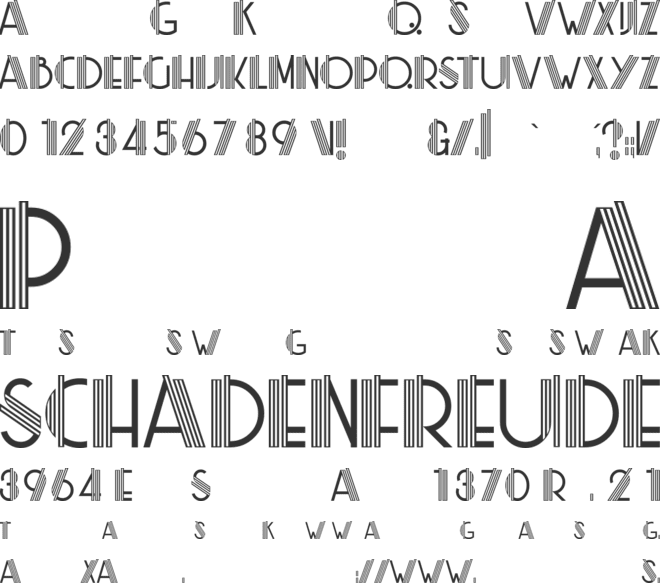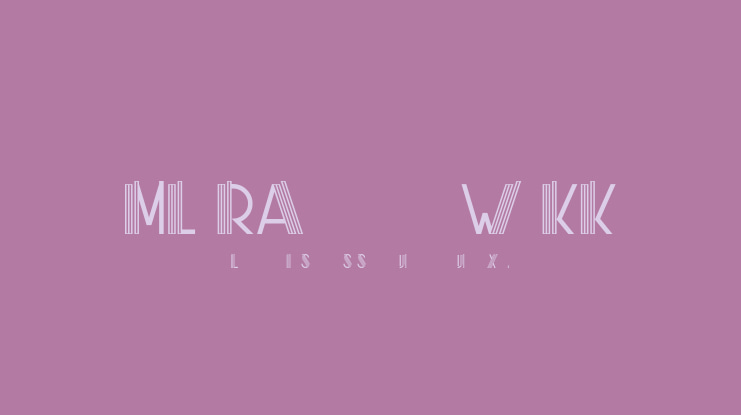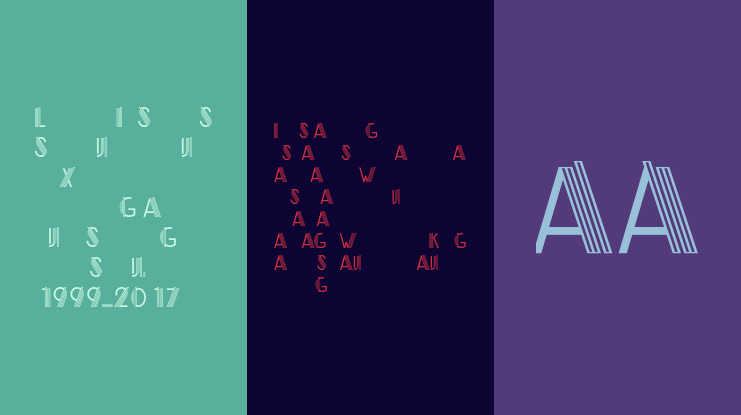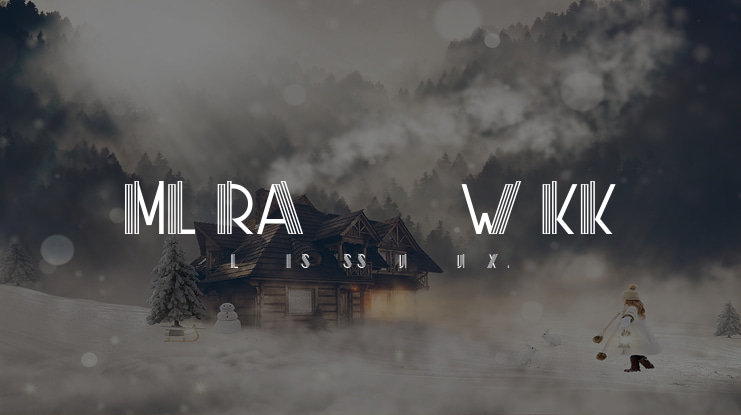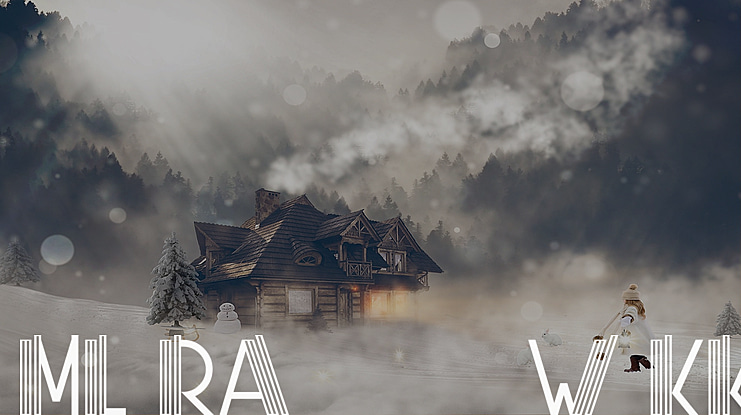
Based on a original design by Marcia Loeb (1975). Sister font of ML ZigZag KK v1.2. Digitized and hand-kerned by koeiekat. Capitals only. Numbers, basic punctuation, Western Latin accents and some alternates added. Alternate A's under a, + and =. Alternate G under g. Alternate K under k. Alternate Q under q. Alternate S under s. Alternate V's under v, ( and ). Alternate W's under w, [ and ]. Dutch IJ under y.